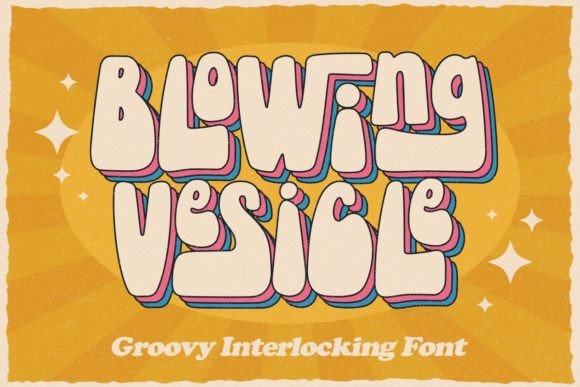
Introducing Blowing Vesicle Font, the ultimate choice for all your creative ventures! Created by the talented designers at Letterhend, this retro bold font takes you on a nostalgic journey, transporting you straight back to the vibrant 60s.
With its funky and groovy style, Blowing Vesicle Font is the perfect companion for all your hippie-inspired projects. Whether you're designing music covers, posters, logos, or even branding materials, this font will effortlessly infuse a mesmerizing retro touch into your creations.
What sets Blowing Vesicle Font apart is its versatility and uniqueness. Every character has been meticulously crafted to reflect the spirit of the era, ensuring that your designs will stand out from the crowd. Each letter boasts an irresistible charm, capturing the essence of the 60s in a visually captivating way.
But that's not all! Blowing Vesicle Font is PUA encoded, granting you easy access to a vast array of incredible glyphs and ligatures. These additional characters will empower your creativity, allowing you to experiment and elevate your designs to new heights.
Imagine the impact of vibrant, psychedelic typography on your music covers. Picture the attention-grabbing headlines that will leave your audience in awe. Blowing Vesicle Font is your secret weapon to command attention and leave a lasting impression.
Embrace the expressive power of Blowing Vesicle Font and let your designs come alive. Its bold and captivating presence will effortlessly draw your audience in, evoking emotions and creating a connection that words alone cannot achieve.
So why wait? Unlock the potential of Blowing Vesicle Font and unleash your creativity today. Elevate your designs, captivate your audience, and embark on a journey that transcends time. Experience the magic of the 60s with Blowing Vesicle Font – the epitome of retro coolness.